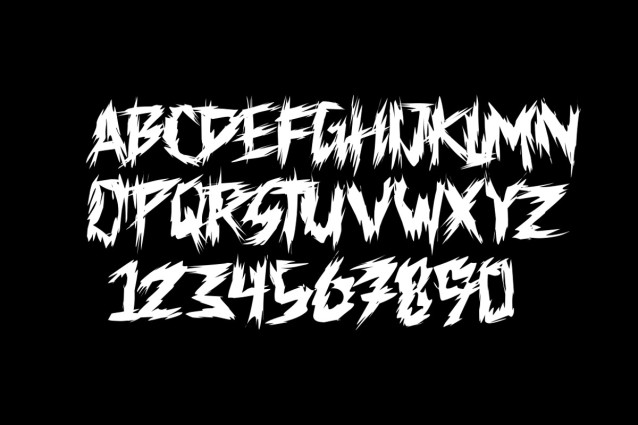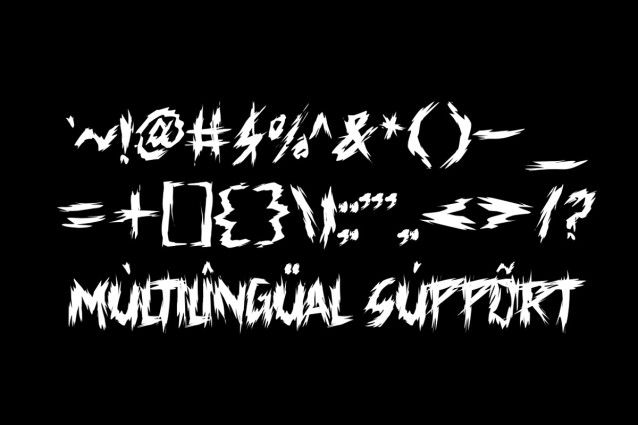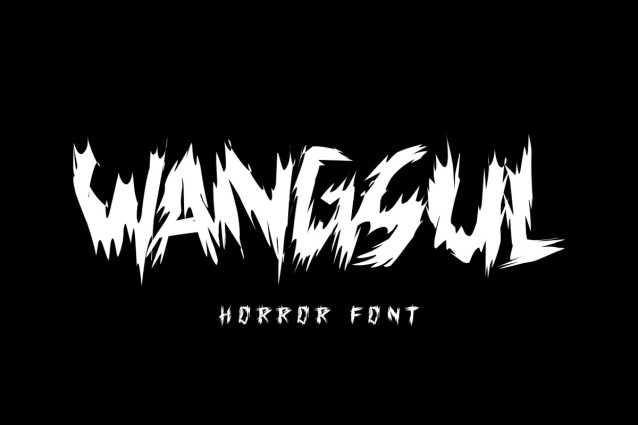
Wangsul Horror Font
Wangsul Horror Font a chilling typeface designed to evoke terror and suspense. This font’s jagged, distressed lettering resembles claw marks, making it perfect for horror-themed designs that need a gruesome, hand-torn look. The sharp edges and uneven strokes capture the essence of horror and fear, creating a truly menacing style. The font pairs well with dark, blood-red backdrops, like the one in the example image, which amplifies its spooky, haunted aesthetic. Wangsul Horror is ideal for Halloween projects, movie posters, or any design that aims to elicit a spine-chilling atmosphere.